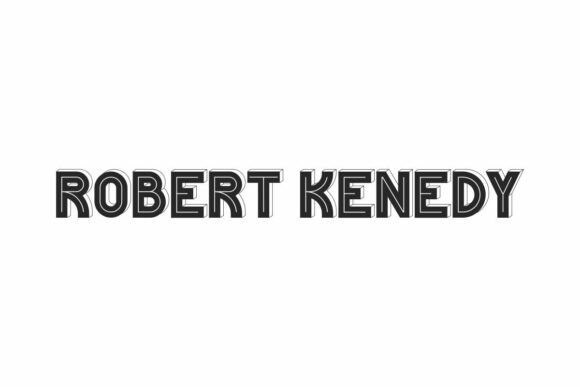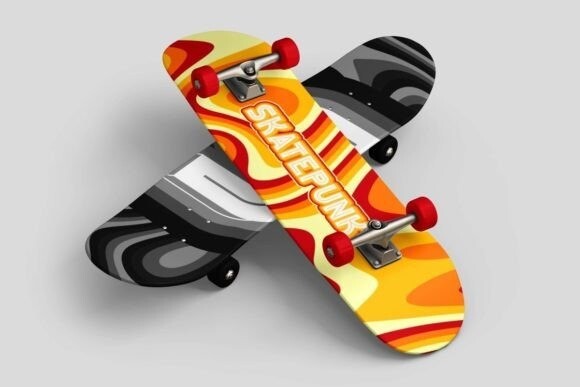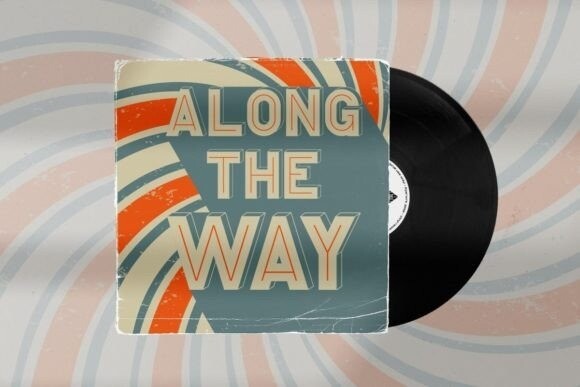
Robert Kenedy Font
Robert Kenedy Font is a display font perfect for various creative projects, including logo branding, lettering, product packaging, signage, stationery, title, website, etc. It will be great for many business industries: fashion, games, magazines, sports, etc.